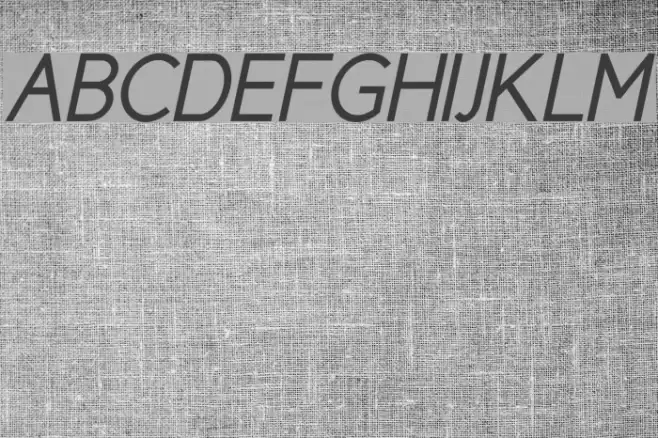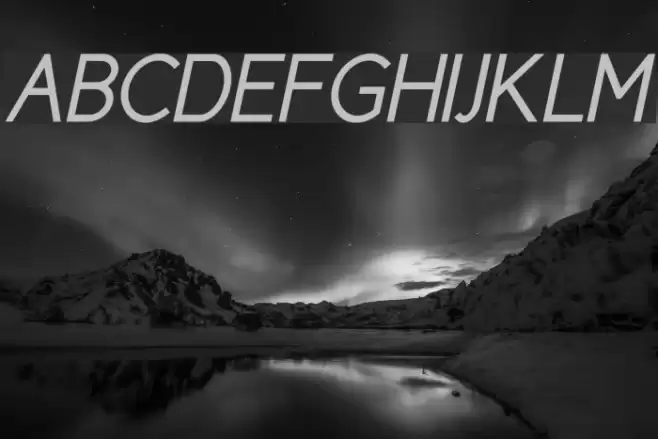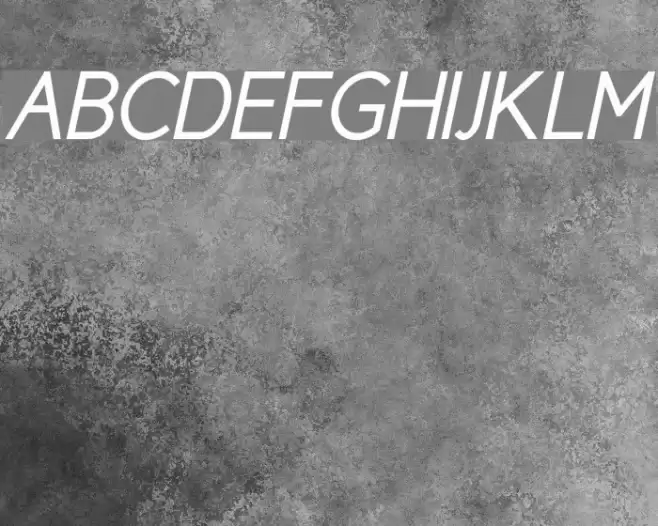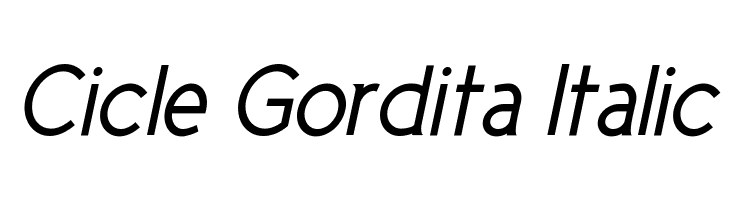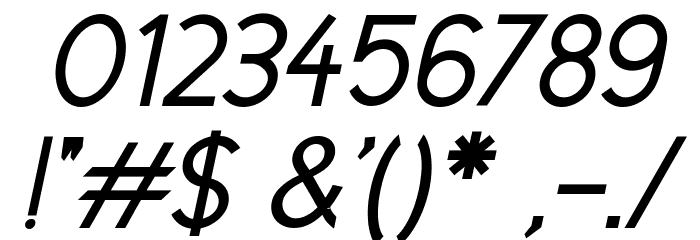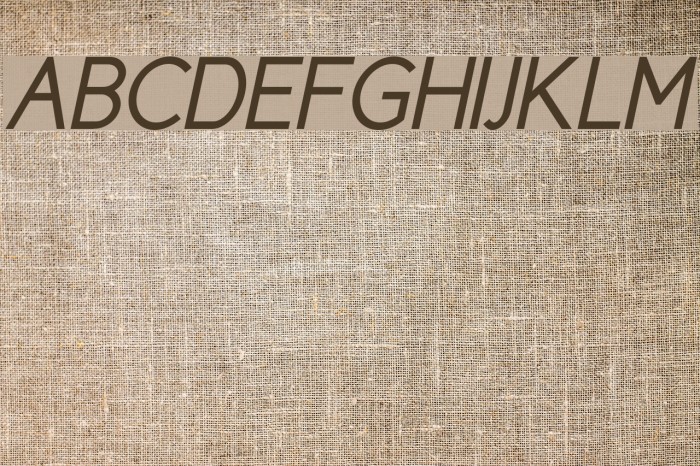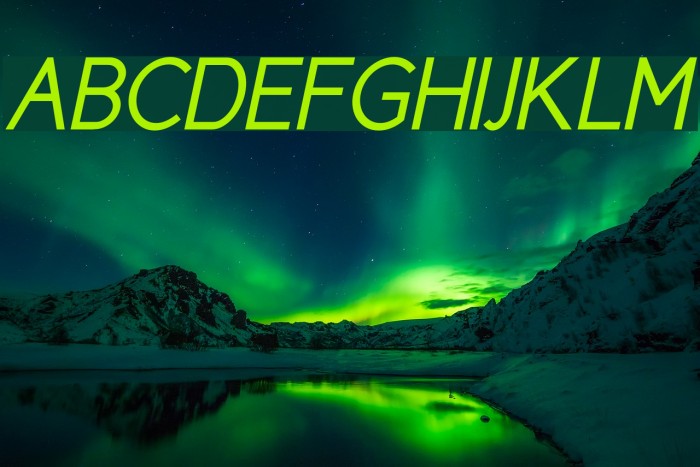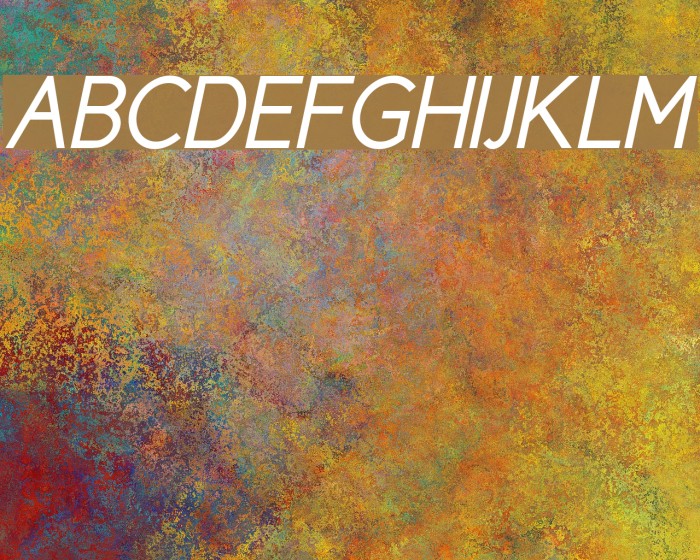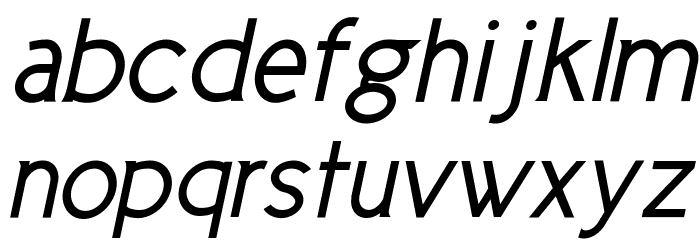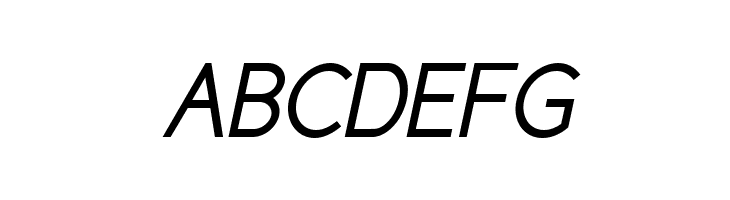
Cicle Gordita Italic Font
Cicle Gordita Italic Description
This font features a sleek and modern design with a slight italic slant, giving it a dynamic and forward-moving appearance. The characters are clean and well-defined, with smooth curves and a consistent stroke width that maintains readability. The uppercase letters are bold and commanding, while the lowercase letters are more rounded and approachable. The numerals are clear and easy to read, making them suitable for various applications. Special characters are included, offering versatility for different design needs. Overall, this font exudes a contemporary and professional vibe, making it suitable for a wide range of projects.
A modern, italic font with clean lines and a dynamic style from Sans Serif fonts.